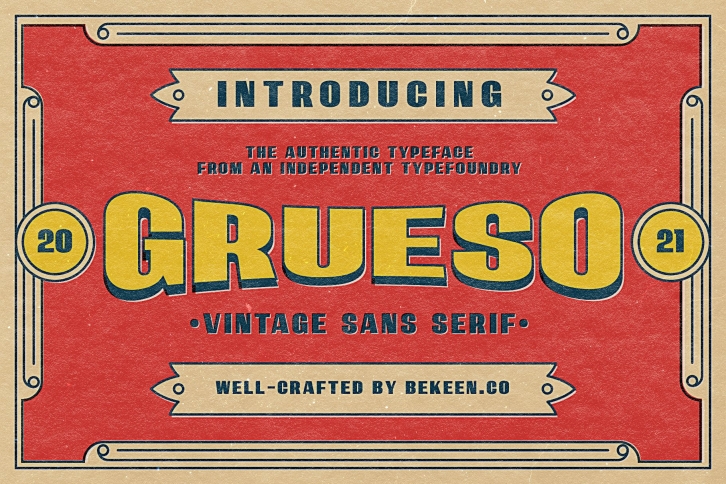
GRUESO is a great font that was designed by BekeenCo. Imagine the amount of combinations you can create using this font! The archive is 7.55 MB and it was released on March 23, 2021. GRUESO looks beautiful on wedding invitations, greeting cards, logos, posters, labels, t-shirt designs, logos, business cards and is perfect for use in ink or watercolor works, fashion, magazines, packaging and food menus, children's books and more!